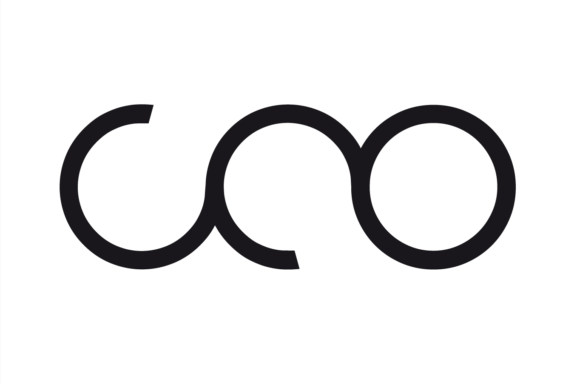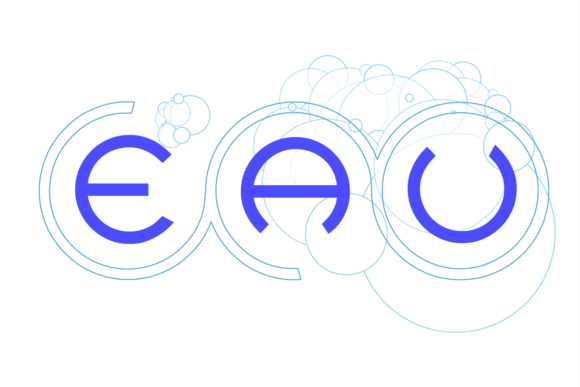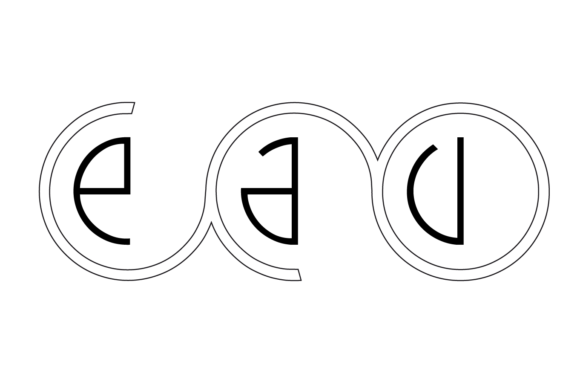
Cercle Font: A Futuristic and Experimental Typeface Inspired by Countdowns
In the realm of typography, fonts play a crucial role in conveying messages, expressing emotions, and creating visual identities. Among the vast array of fonts available, some stand out for their uniqueness and innovative design. One such font is Cercle Font, a futuristic and experimental typeface that draws inspiration from the countdowns often seen before movie screenings: 5, 4, 3, 2… 1!
The Concept Behind Cercle Font
Cercle Font is built on a simple yet intriguing concept: it uses circles for capital letters and semicircles for lowercase characters. This distinctive design approach gives the font its name and sets it apart from more traditional typefaces. The use of circular shapes not only lends a futuristic feel to the font but also creates a sense of unity and coherence across the character set.
The design of Cercle Font is characterized by its clean lines, geometric shapes, and a minimalist aesthetic. The circular and semicircular shapes that form the basis of the font’s characters are meticulously crafted to ensure legibility and visual appeal. The font’s geometric nature makes it highly versatile, suitable for a wide range of applications, from digital interfaces to print materials.
One of the key features of Cercle Font is its ability to convey a sense of modernity and innovation. The use of circles and semicircles gives the font a dynamic and progressive feel, making it an excellent choice for designers looking to create a forward-thinking visual identity.
Inspirations and Influences
The inspiration behind Cercle Font is deeply rooted in the countdown sequences often displayed before movie starts. This familiar countdown creates a sense of anticipation and excitement, qualities that the font aims to capture in its design. By translating the numerical countdown into a typographic form, Cercle Font offers a unique visual representation of the moments leading up to a significant event.
Moreover, the font’s design nods to the broader tradition of geometric and experimental typography. It draws on the legacy of typefaces that have pushed the boundaries of conventional design, embracing simplicity and abstraction to create something truly distinctive.
Applications of Cercle Font
Cercle Font’s unique design makes it suitable for a variety of applications. Its futuristic and experimental nature lends itself well to projects that require a modern and innovative aesthetic. Some potential uses of Cercle Font include:
- Digital Interfaces: The font’s clean and geometric design makes it well-suited for digital platforms, including websites, apps, and software interfaces.
- Branding and Logo Design: Cercle Font’s distinctive look can help create memorable brand identities that stand out in a crowded marketplace.
- Print Materials: From brochures and posters to business cards and letterheads, the font’s versatility makes it suitable for a wide range of print applications.
- Art and Craft Projects: For crafters and artists, Cercle Font offers a unique typographic element that can add a touch of modernity and creativity to handmade projects.
Cercle Font is a testament to the power of innovative design in typography. By drawing inspiration from the familiar countdown sequence and translating it into a geometric typeface, Cercle Font offers designers and crafters a unique tool for creating modern, visually striking projects. Whether used in digital interfaces, branding, print materials, or art and craft projects, Cercle Font is sure to make a statement with its futuristic and experimental aesthetic.
As the world of design continues to evolve, fonts like Cercle Font remind us of the importance of creativity and innovation in typography. By pushing the boundaries of conventional design, we can create new and exciting ways to communicate and express ourselves.